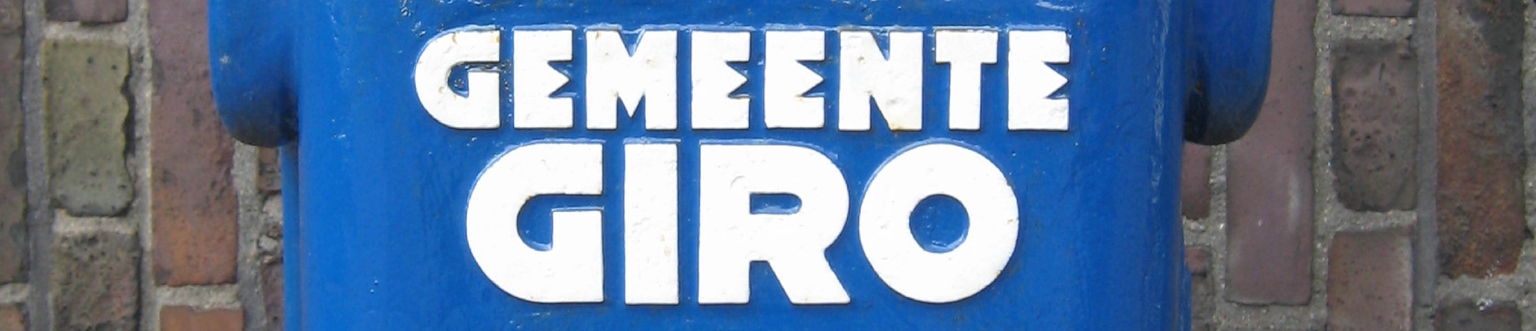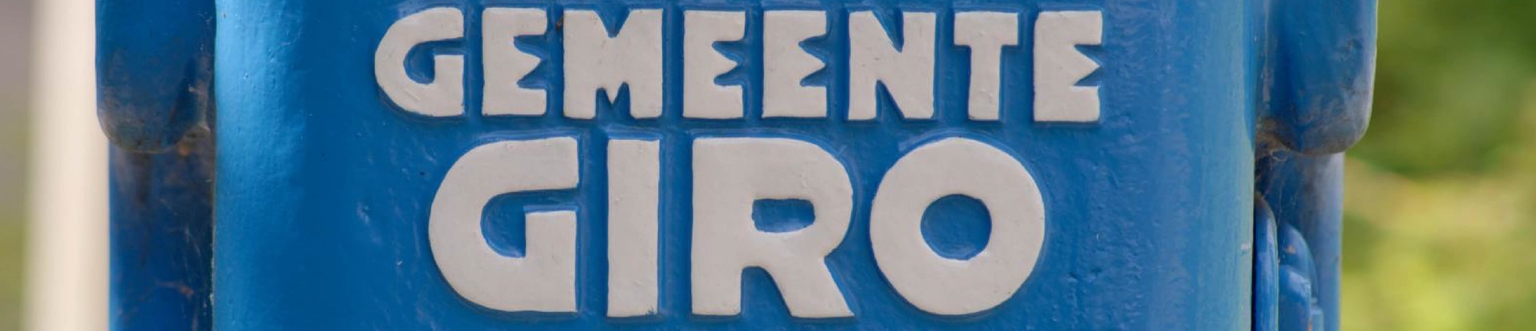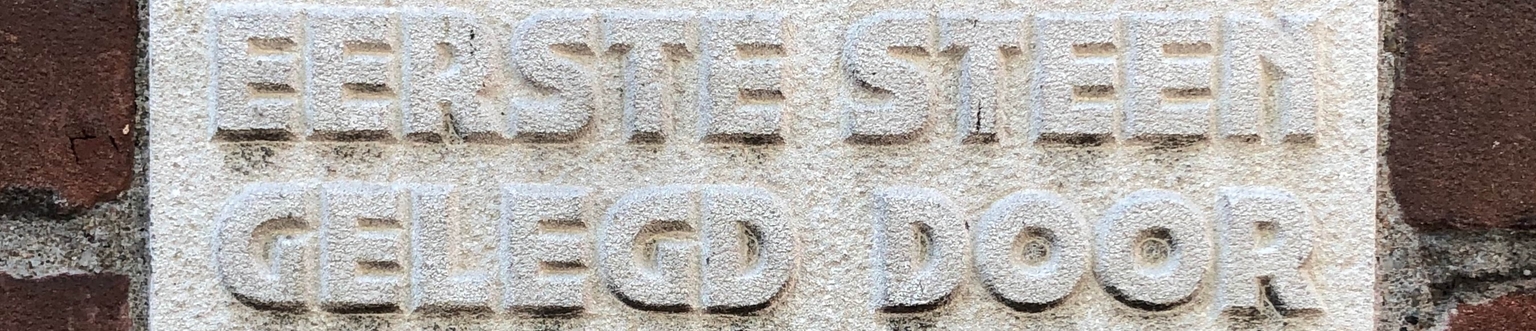
Misiva
Misiva (meaning "message" or "letter" in Spanish) is a geometric sans typeface by Ramiro Espinoza, inspired by the elegant lettering found on the mailboxes designed in 1926 by Anton Kurvers (1889–1940) for the Amsterdam Municipal Public Works Office. Espinoza, an admirer and collector of Kurvers’ work, had previously drawn from his legacy when creating the successful Kurversbrug typeface, based on the lettering from Amsterdam’s bridges. With Misiva, he saw another opportunity to revive and reinterpret one of Kurvers’ distinctive alphabets.
To deepen his research, Espinoza began acquiring books and printed materials produced by the designer, studying their forms in detail. The result is a faithful yet contemporary adaptation, preserving the refined geometry and subtle deco influences that made the original so striking. Recommended for posters, signage, websites, branding, packaging, and design pieces connected to the Amsterdamse School and Amsterdam of the 1920s, Misiva offers a sharp, historically rooted tool that bridges heritage with modern typographic expression.